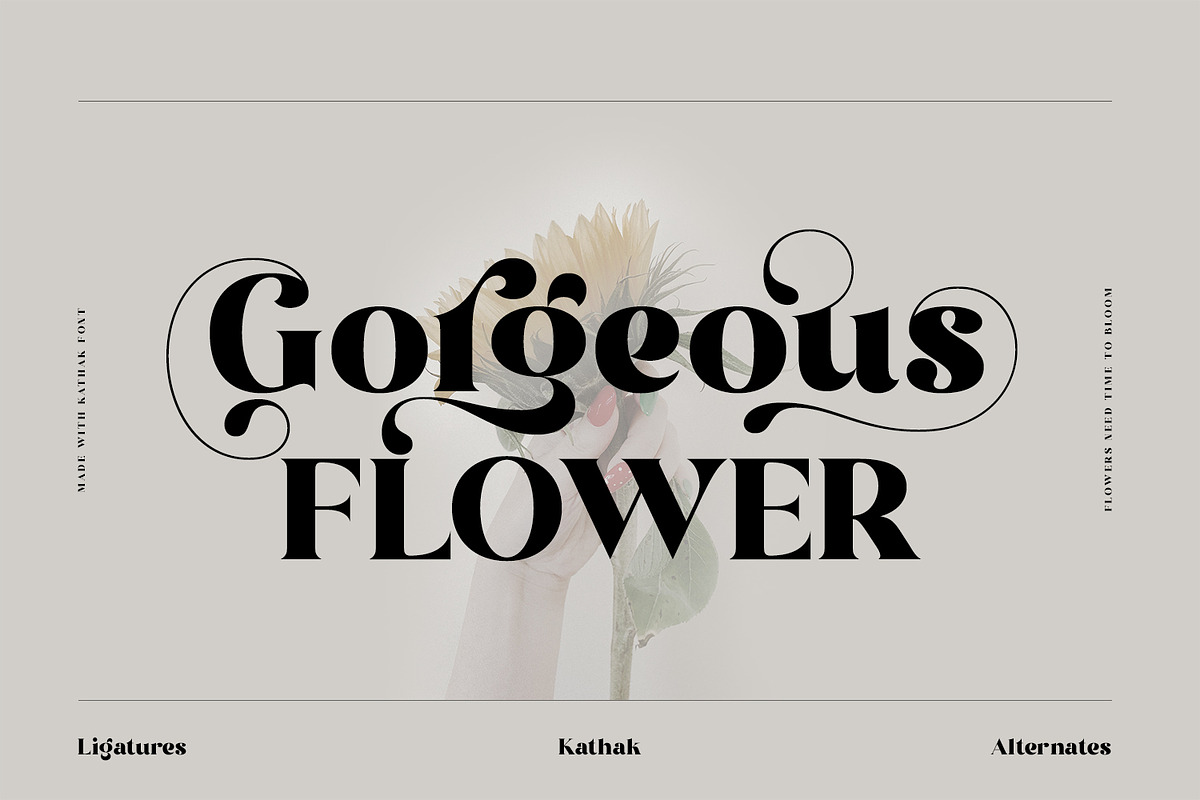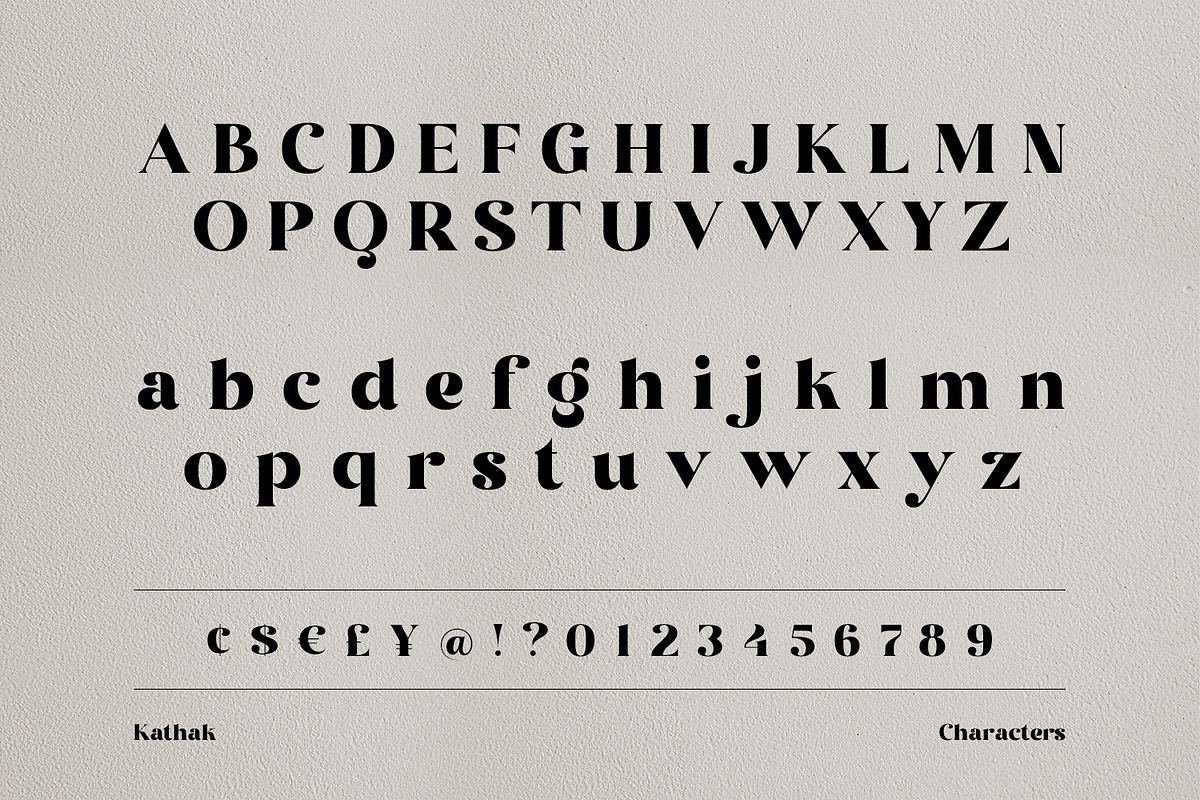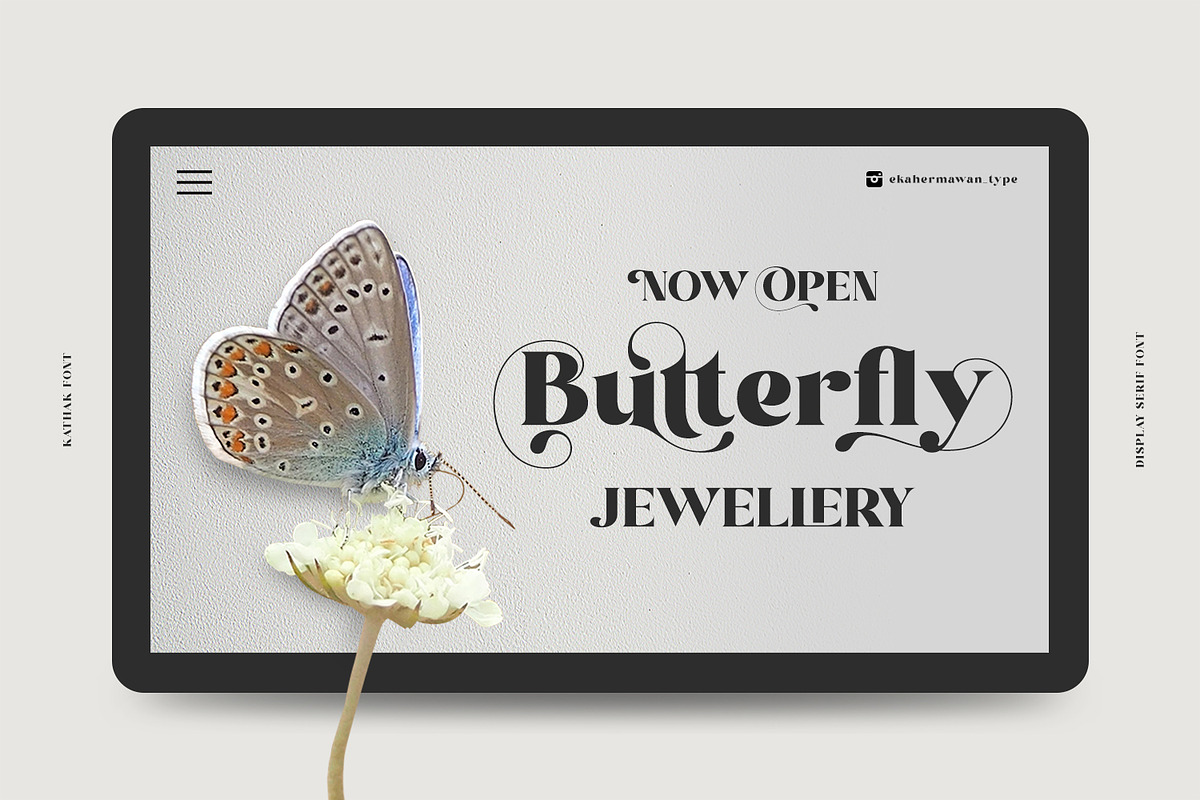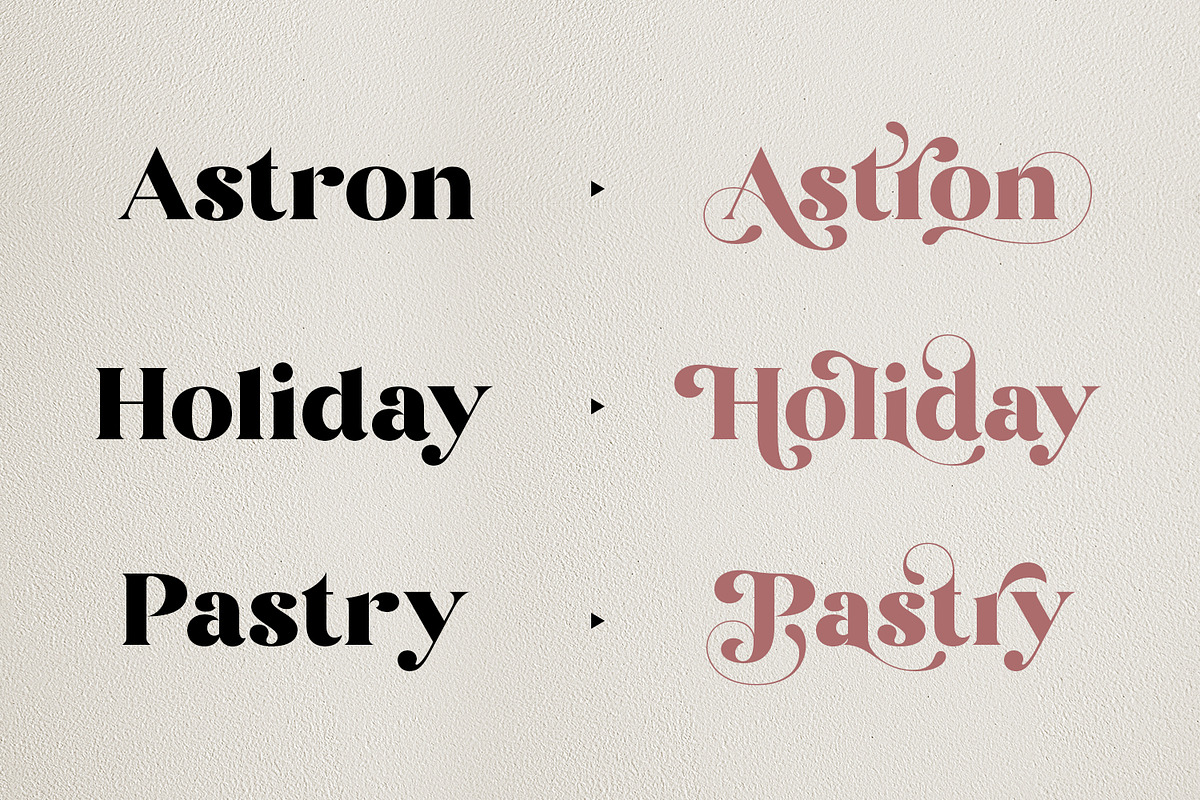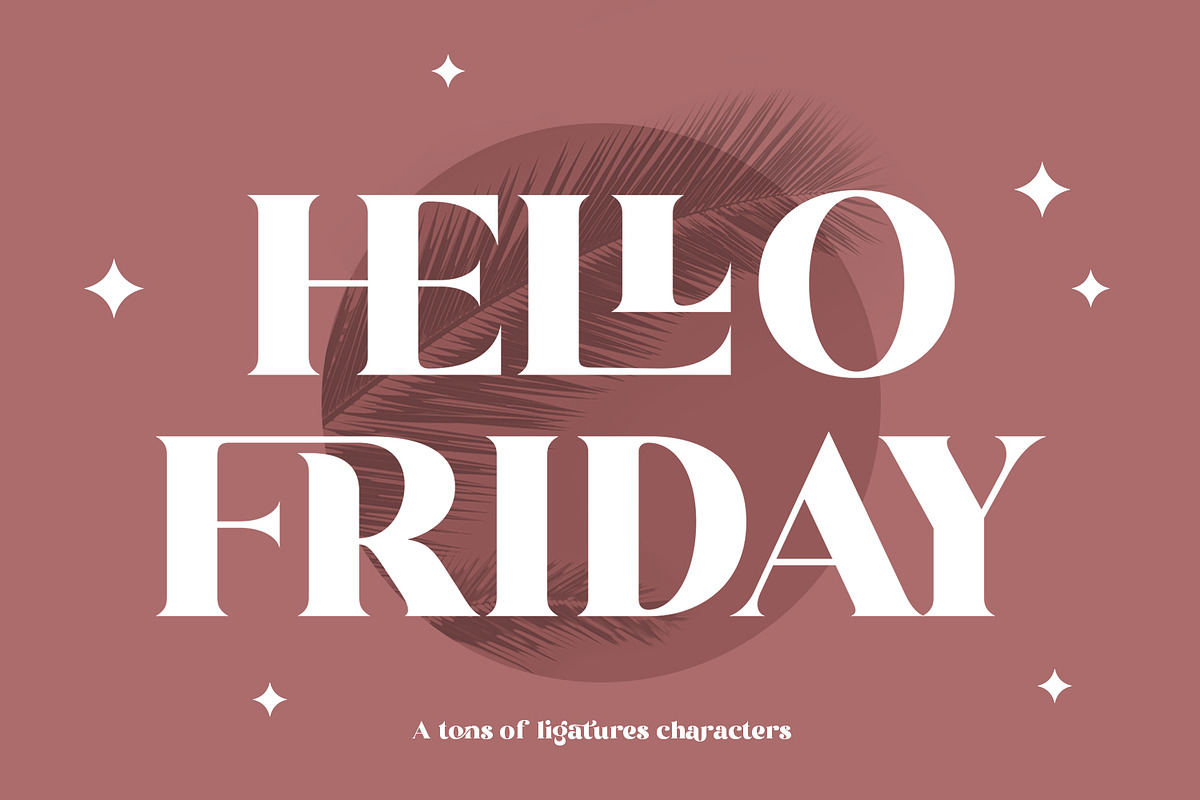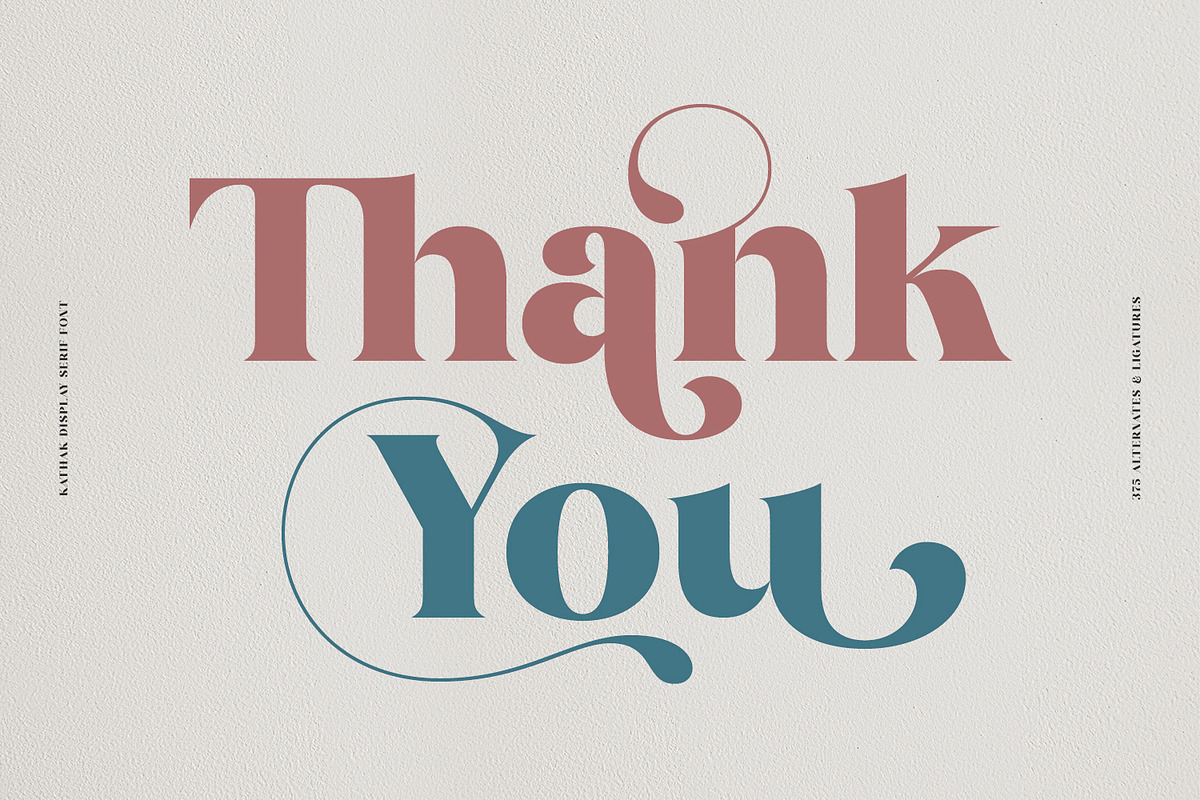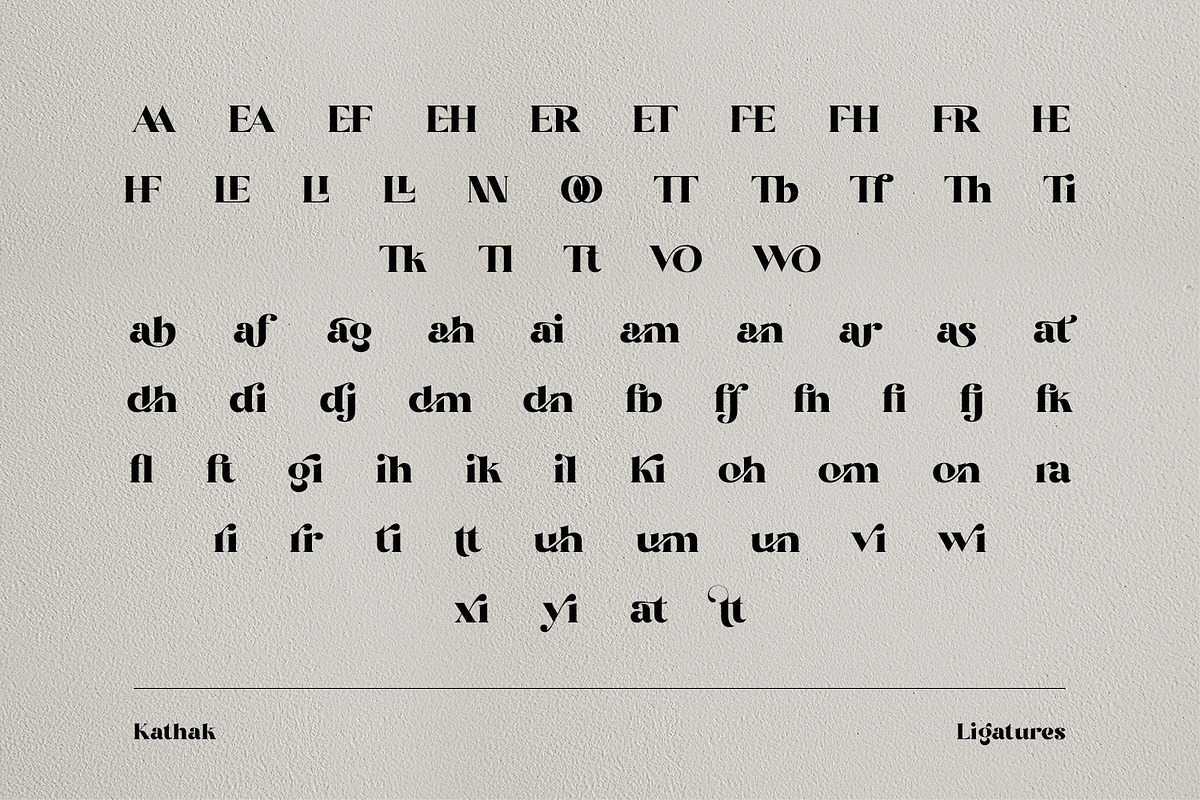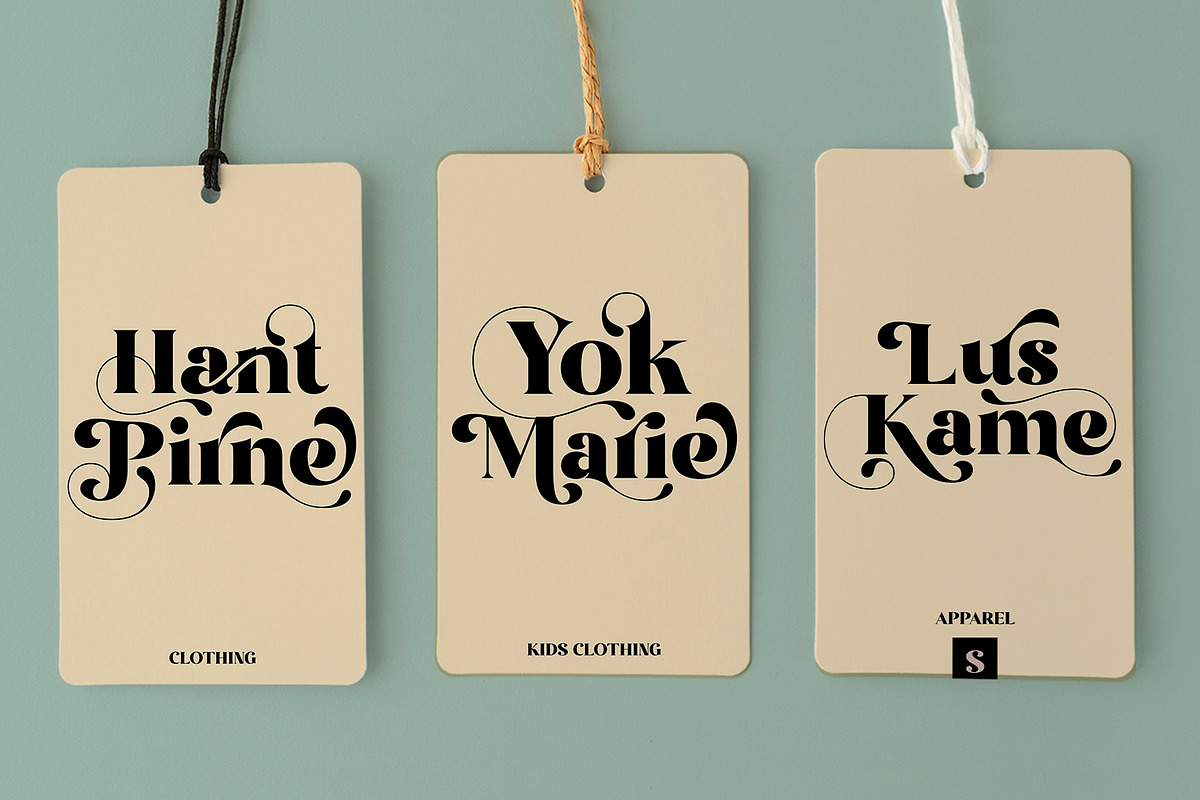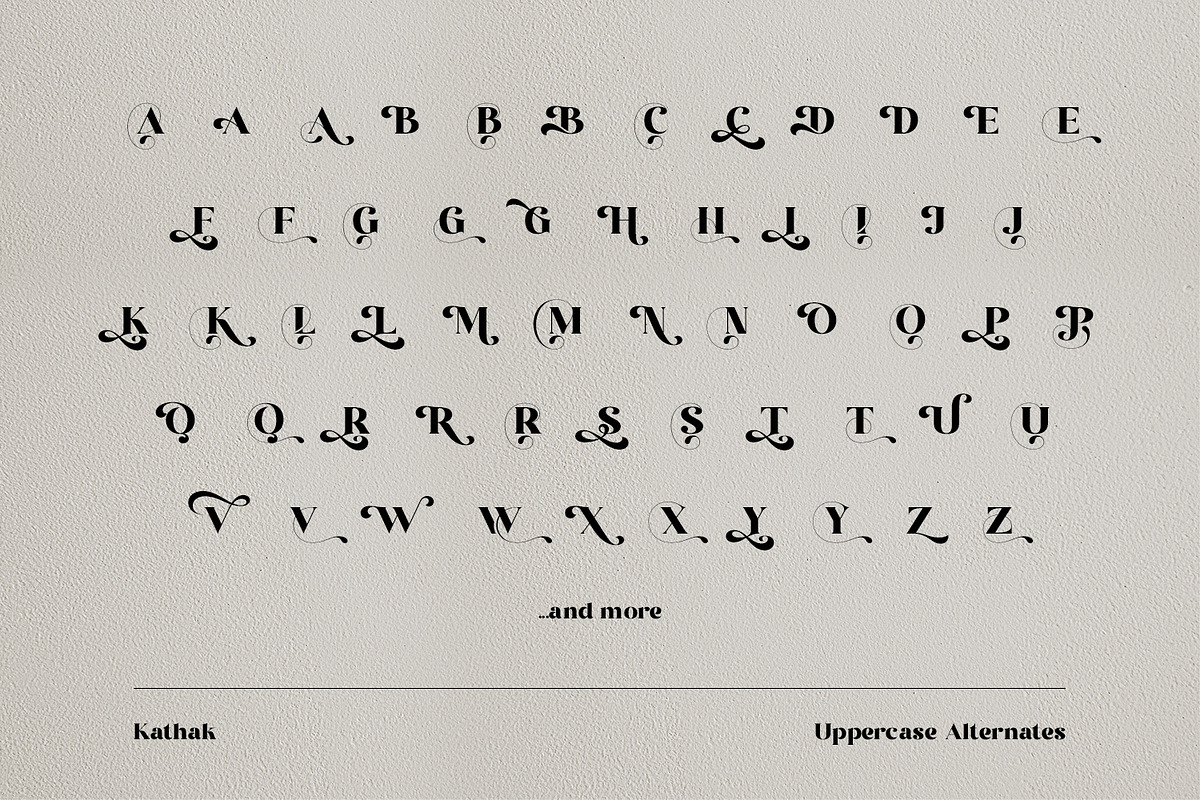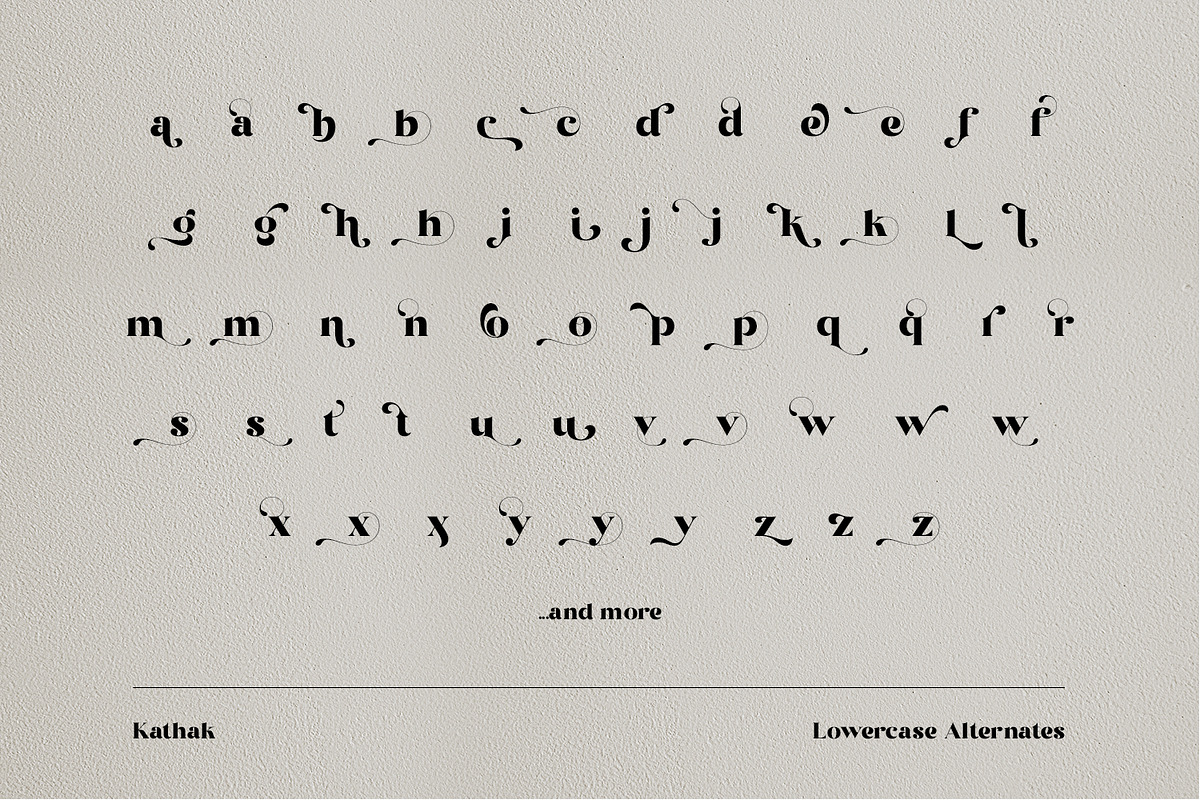
Kathak - Modern Classy Serif Font
Please welcome Kathak. Kathak is a display serif font. Kathak is specially designed to make your typography design result looks more beautiful with tons of alternates and ligatures characters. Kathak is versatile font for many different projects such as logo, branding, poster, magazines, labels, merchandise, invitation, presentation, advertising, quotes and so much more!
- OpenType support
- Playfull to use (with ligatures and alternates options)